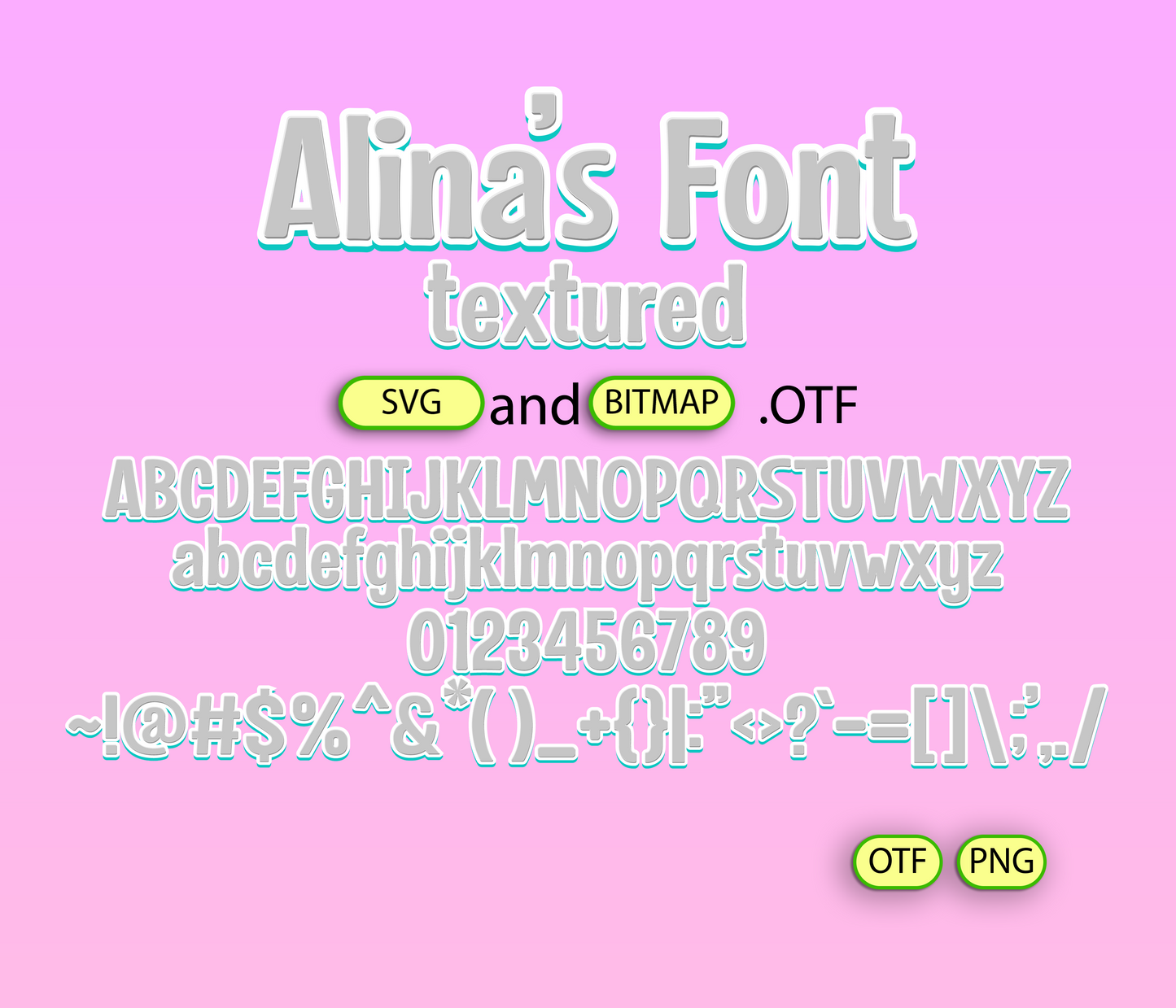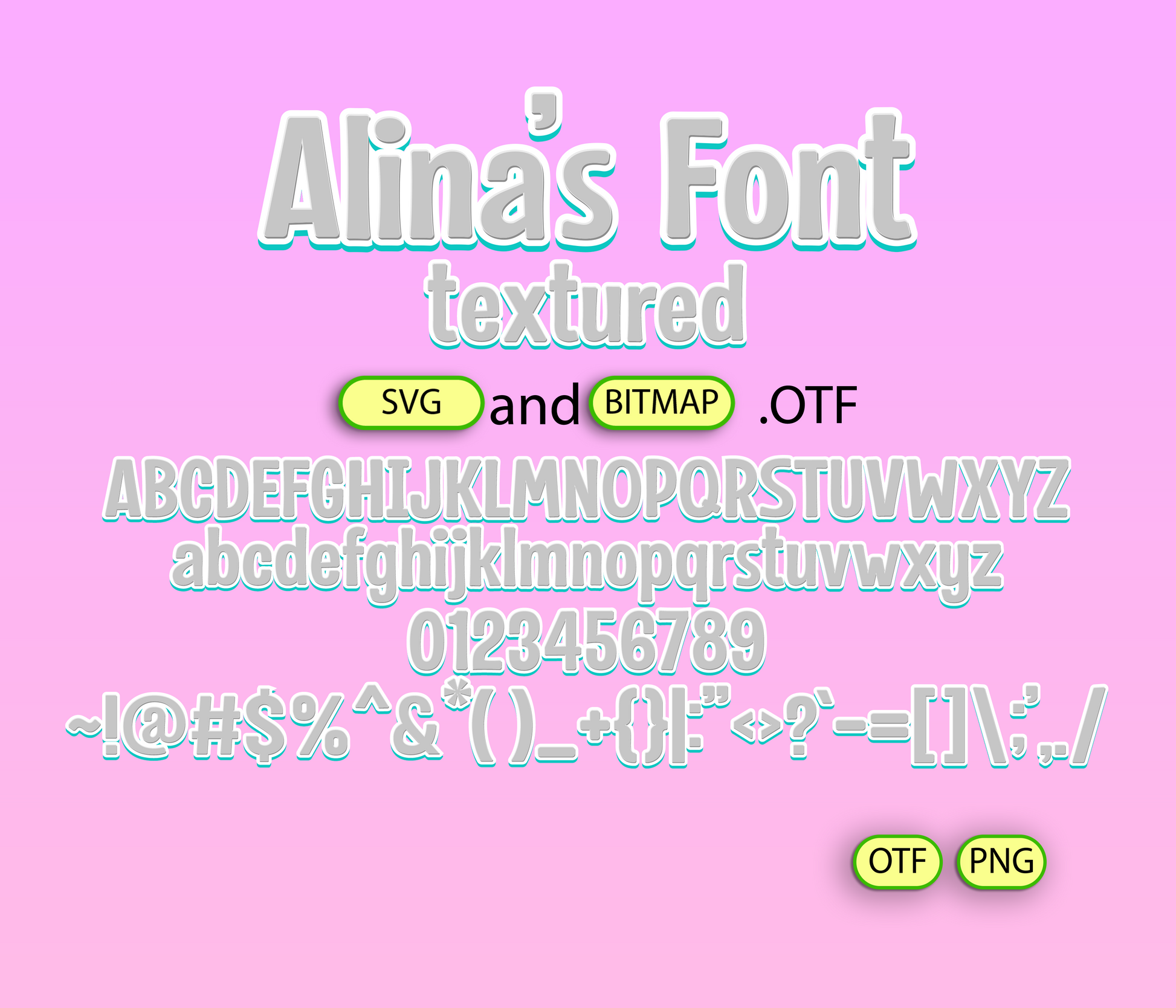
Fluffy Gray Color Font Textured for Kids
Step into the adorable world of soft-toned companions with our Fluffy Gray Color Font for Kids, capturing the essence of squishy gray plush toys and ultra-soft fluffy collectibles. Perfect for children's birthday parties, baby boutiques, toy designers, and creative professionals, this font brings the cuddly, gentle spirit of marshmallow-soft gray characters to your projects. Create heartwarming invitations, merchandise, or digital content with the cozy energy of lovable plushie companions.
Soft Plush Typography for Children's Design & Baby Products
Our Fluffy Gray Color Font for Kids features rounded, pillowy letterforms and soft bubble-like curves reflecting the world of ultra-plush gray toys.
- Event Promotions: Create adorable invitations, posters, and banners for birthday parties, baby showers, and themed gatherings that capture the spirit of fluffy plush joy
- Merchandise Design: Perfect for baby clothing tags, toy packaging, nursery decor, and accessories that showcase the soft aesthetic of cuddly gray companions
- Digital Media: Enhance websites, blogs, and social media with cozy headers and graphics that express the comfort of plushie friendship
- Children's Content: Add authentic charm to storybooks, educational materials, and creative designs inspired by kawaii plush adventures
- Personal Projects: Bring squeezable cuteness to scrapbooking, DIY crafts, and home decor inspired by the world of ultra-soft gray plushies
Our font pays tribute to the iconic world of soft plush toys and kawaii design, empowering your projects with its gentle and huggable spirit. Whether crafting party materials, designing baby products, or adding a cuddly touch to personal projects, this font communicates the heartwarming essence of childhood comfort. Ready to inject fluffy gray charm into your creations? This font is your key to adorable, impactful design.